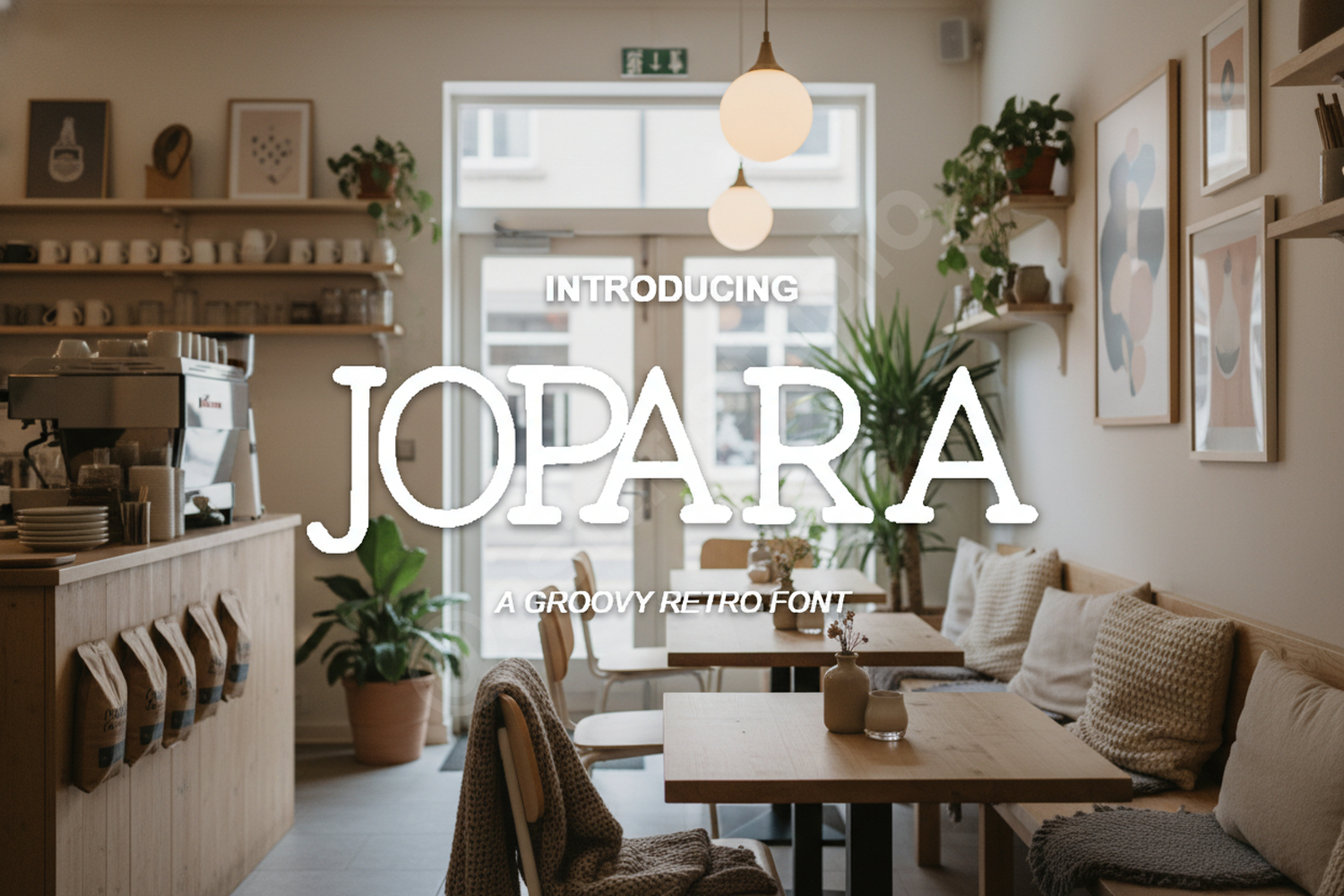
Jopara - Sophisticated Modern Serif Typeface
Jopara
Jopara is a premium serif typeface designed to bring a touch of class and modern sophistication to your creative projects. With its clean lines and balanced proportions, this font offers a timeless aesthetic that bridges the gap between traditional elegance and contemporary design. Whether you are crafting a high-end brand identity or a minimalist editorial layout, Jopara delivers exceptional legibility and style.
- Standard Ligatures and Stylistic Alternates
- Luxury Branding and Logo Design
- Wedding Invitations and Event Stationery
- Editorial Layouts and Magazine Headings
- Professional Social Media Graphics
- High-end Product Packaging and Labels